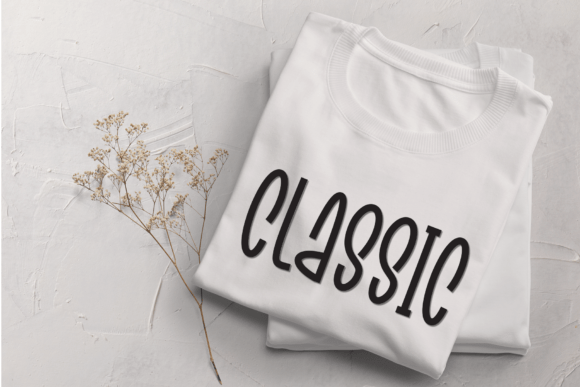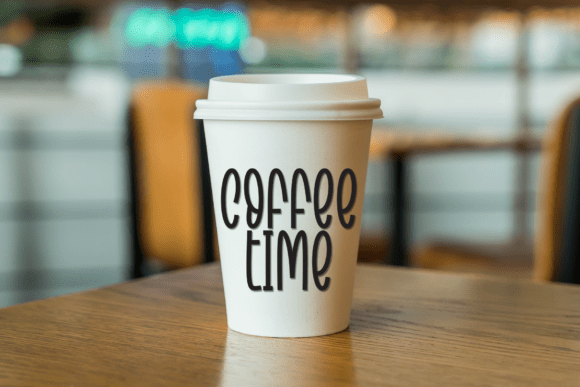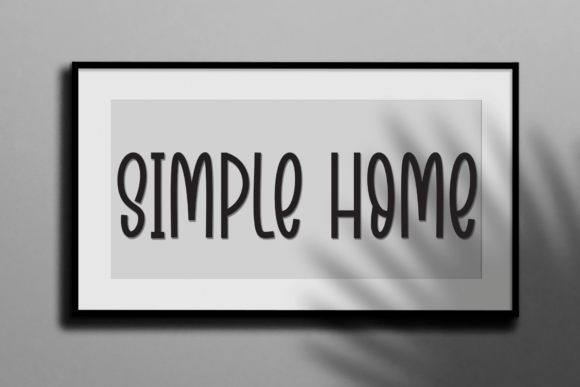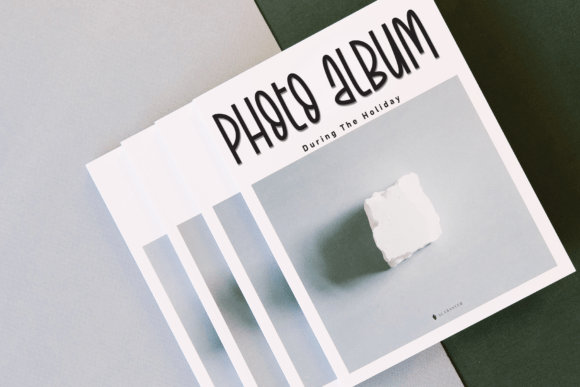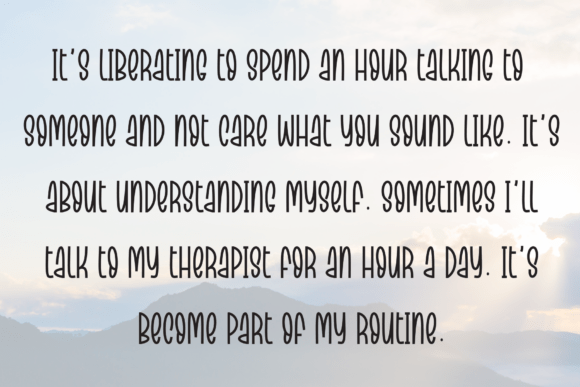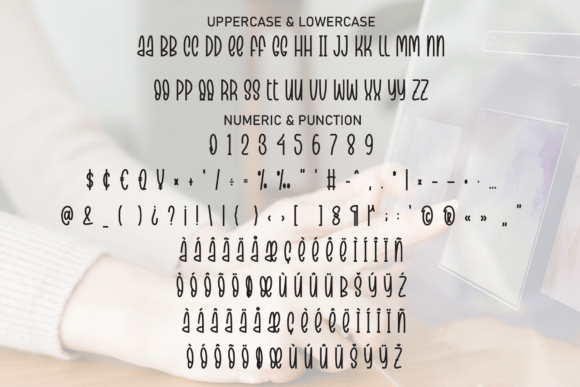
Introduction to Digital Stickers Font
Digital Stickers is a casual and neat display font designed to bring warmth and clarity to your projects.
With its clean structure and approachable style, it suits branding, headlines, and everyday designs The balanced letterforms offer readability and charm, making every message feel genuine and inviting.
Key Features of Digital Stickers Font